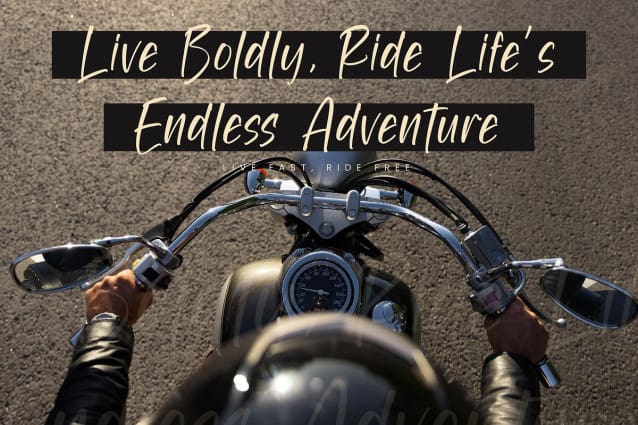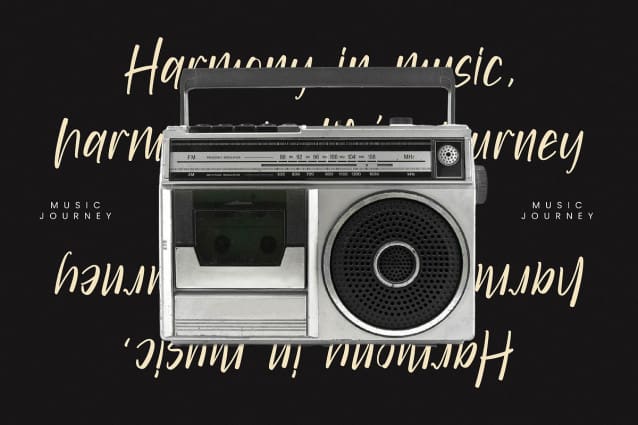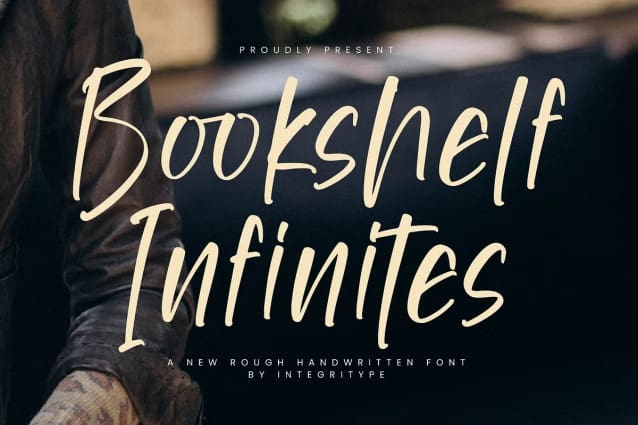
Bookshelf Infinites Font
Bookshelf Infinites Font – Rough Handwritten Font, from Integritype Studio, perfect for any project like: logos, branding projects, homewares designs, product packaging, mugs, quotes, posters, shopping bags, t-shirts, covers books, business cards, invitation cards, greeting cards, labels, photography, watermarks, special events and all your other luxury projects that require a premium taste.